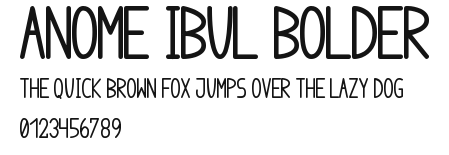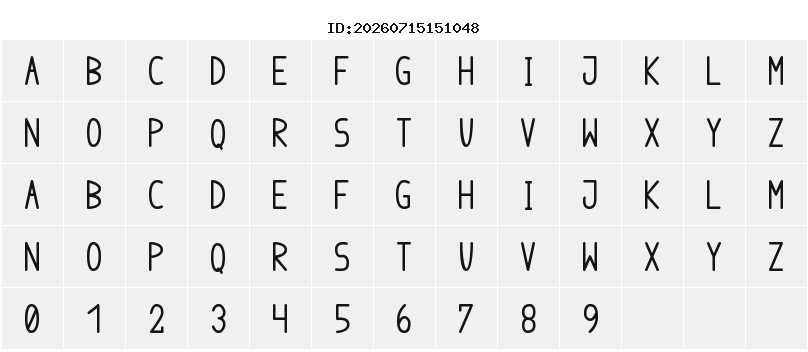
anome ibul bolder Preview
• Font Name: anome ibul bolder
• Font ID: anome ibul bolder:Version 1.00
• Full Font Name: anome ibul bolder
• Version: Version 1.00 February 12, 2013, initial release
• PostScript Name: anomeibulbolder
• Designer: kaiser zhar khan
About anome ibul bolder.ttf
anome ibul bolder.ttf is a modern, elegant sans-serif font designed for ultimate readability and visual harmony. Perfect for branding, headlines, web design, and print materials.